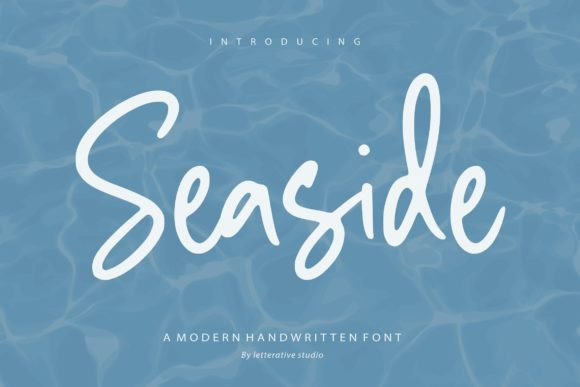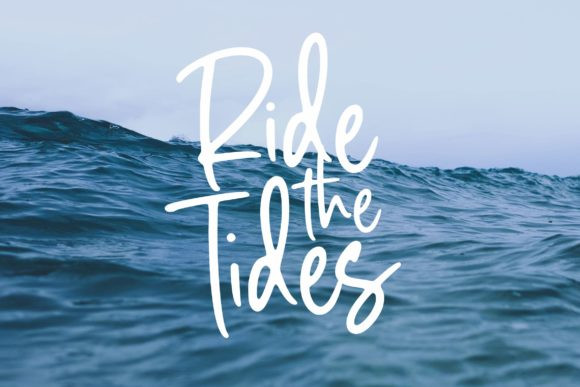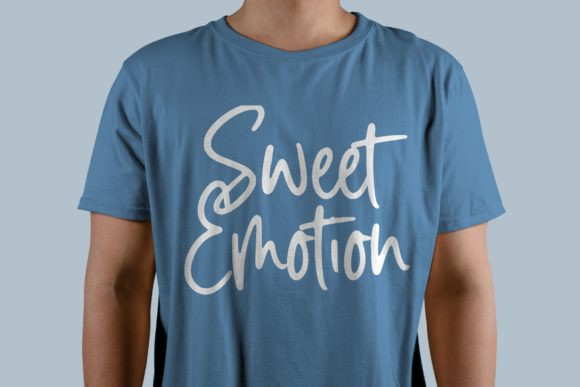
Seaside Font
Seaside FontSeaside is a simple, modern and relaxed handwritten font.
It is perfect for product packaging, branding projects, magazine covers, social media, and so much more.